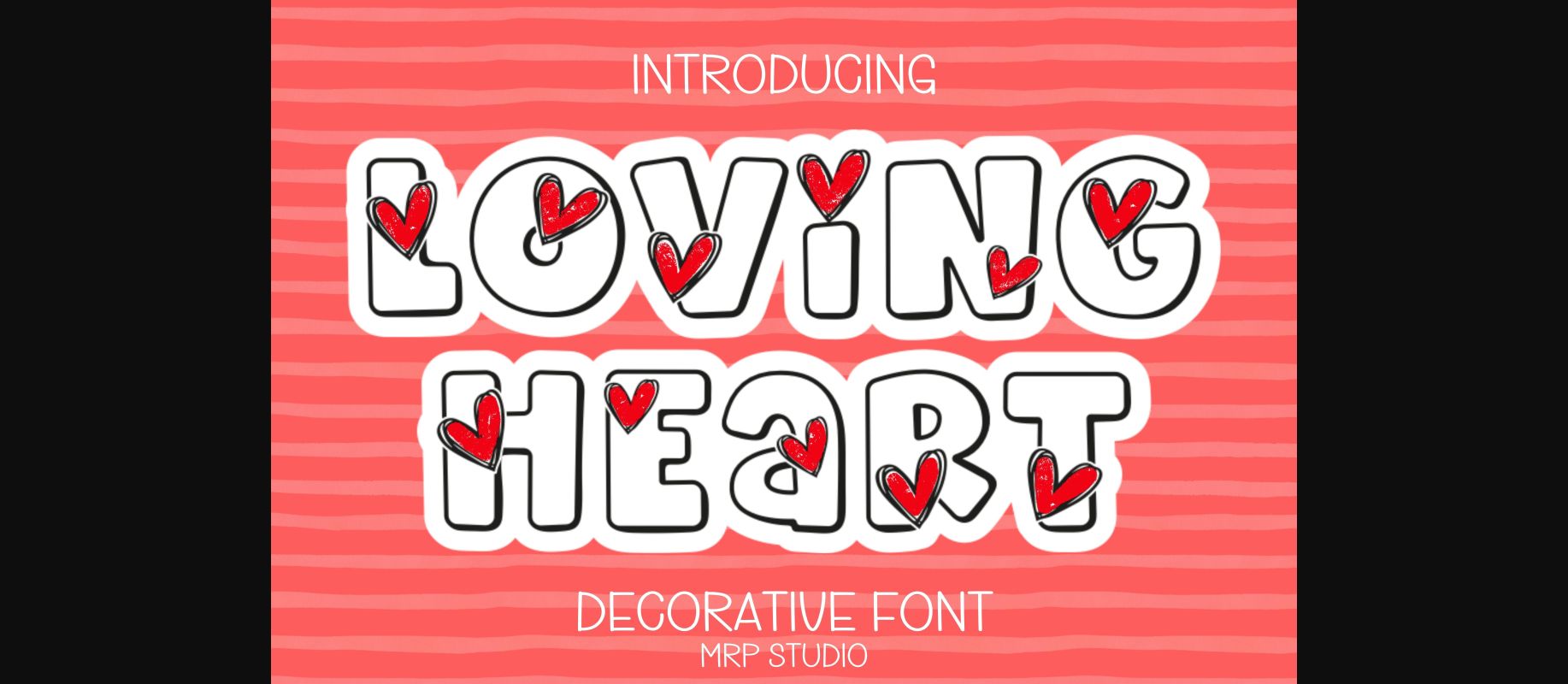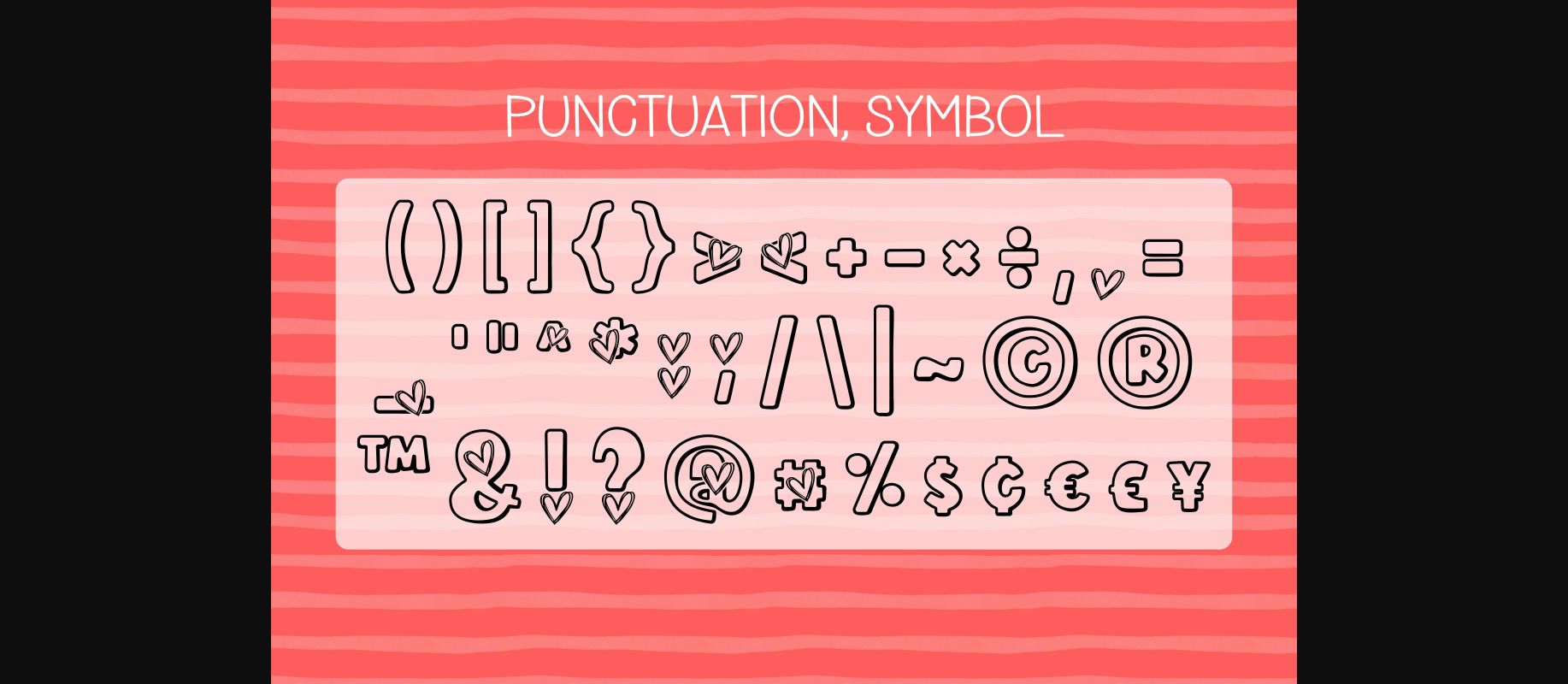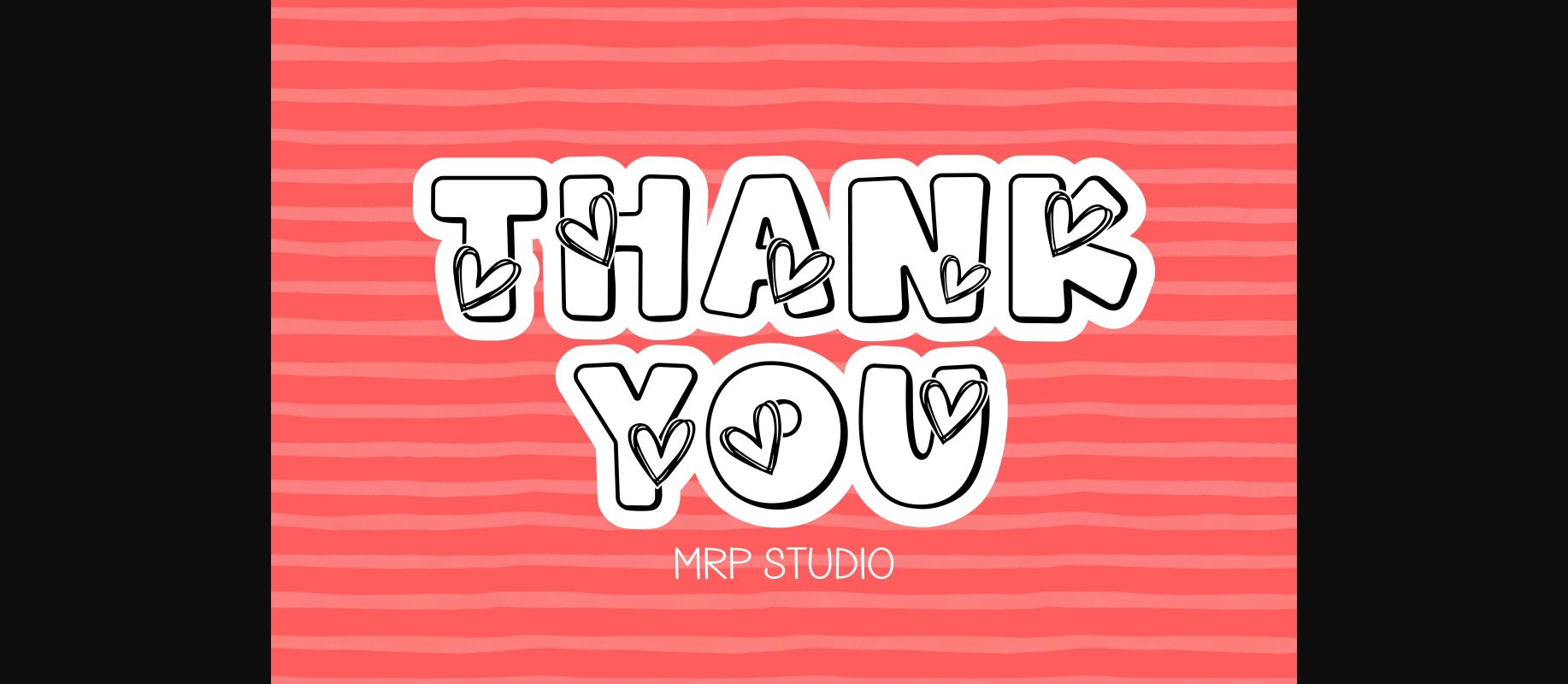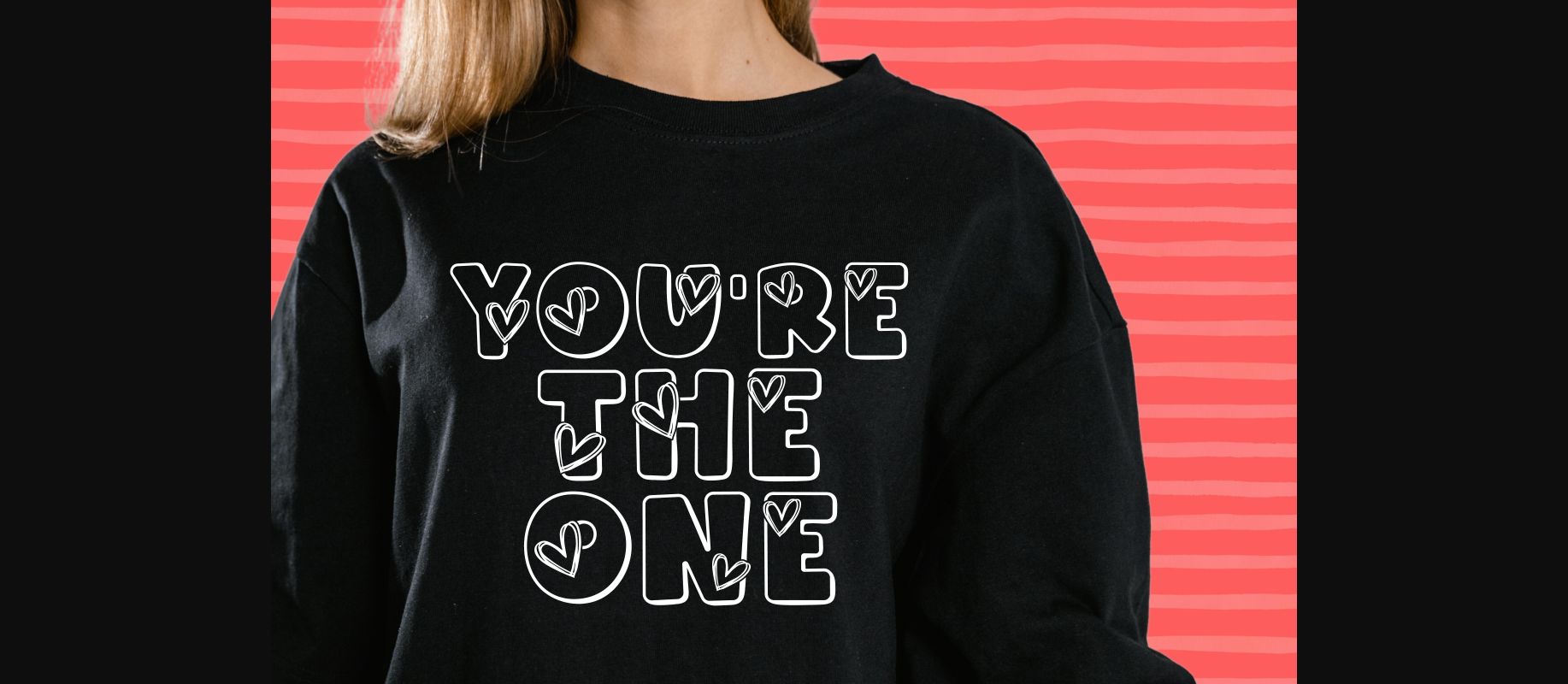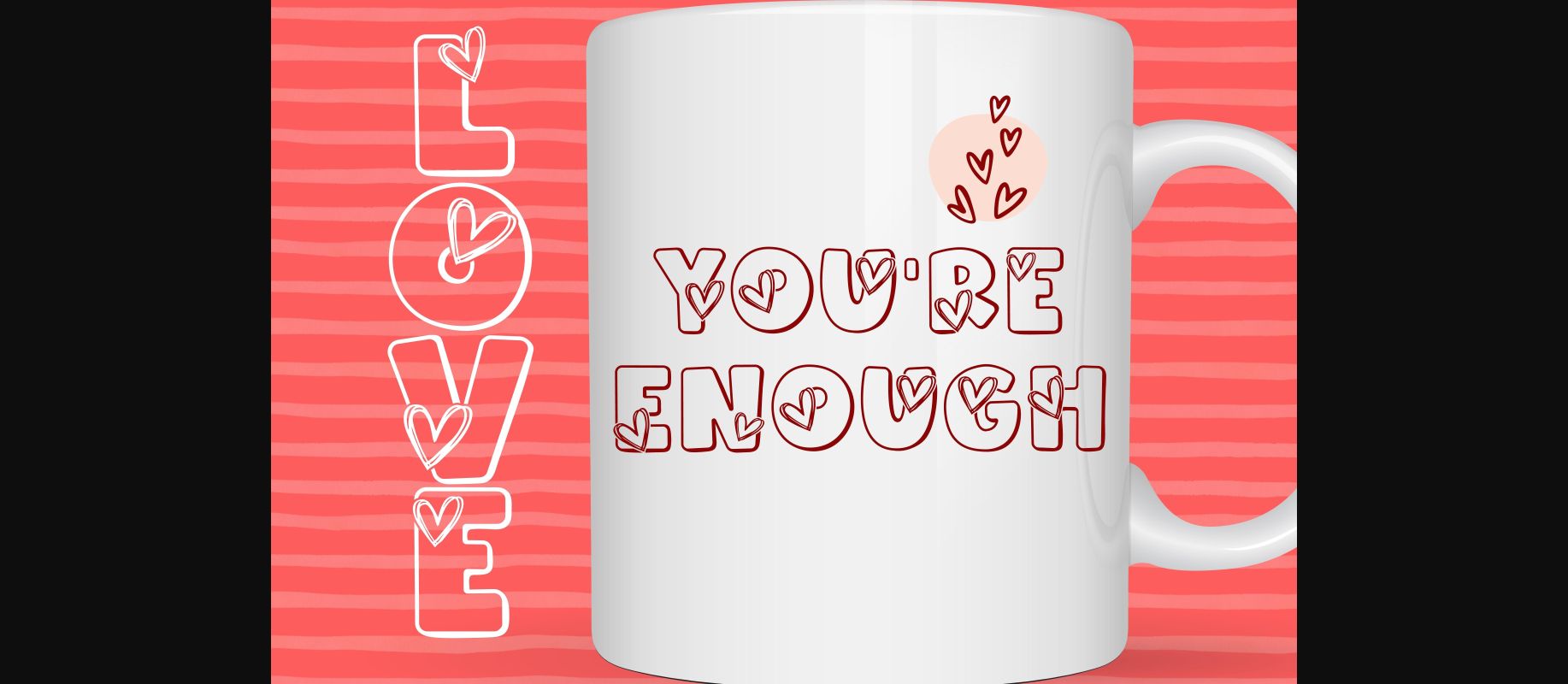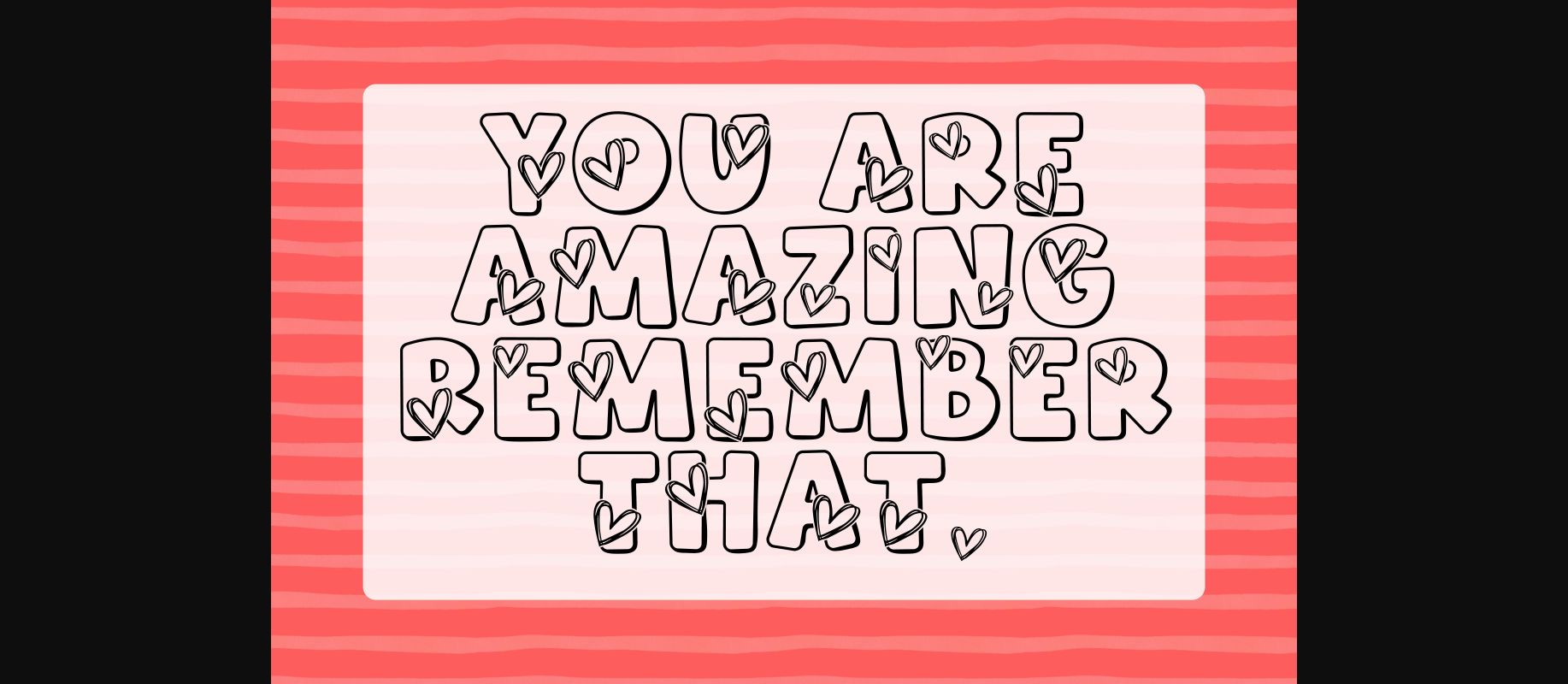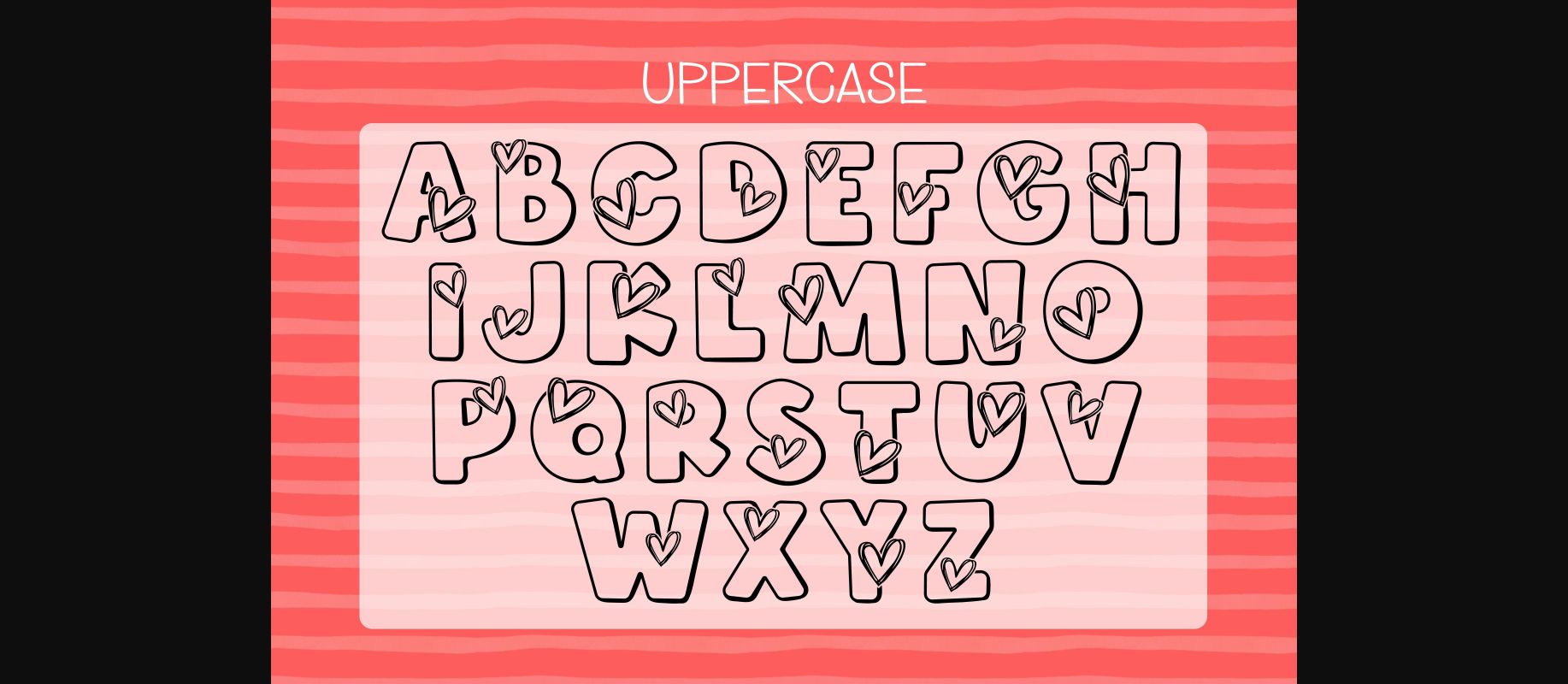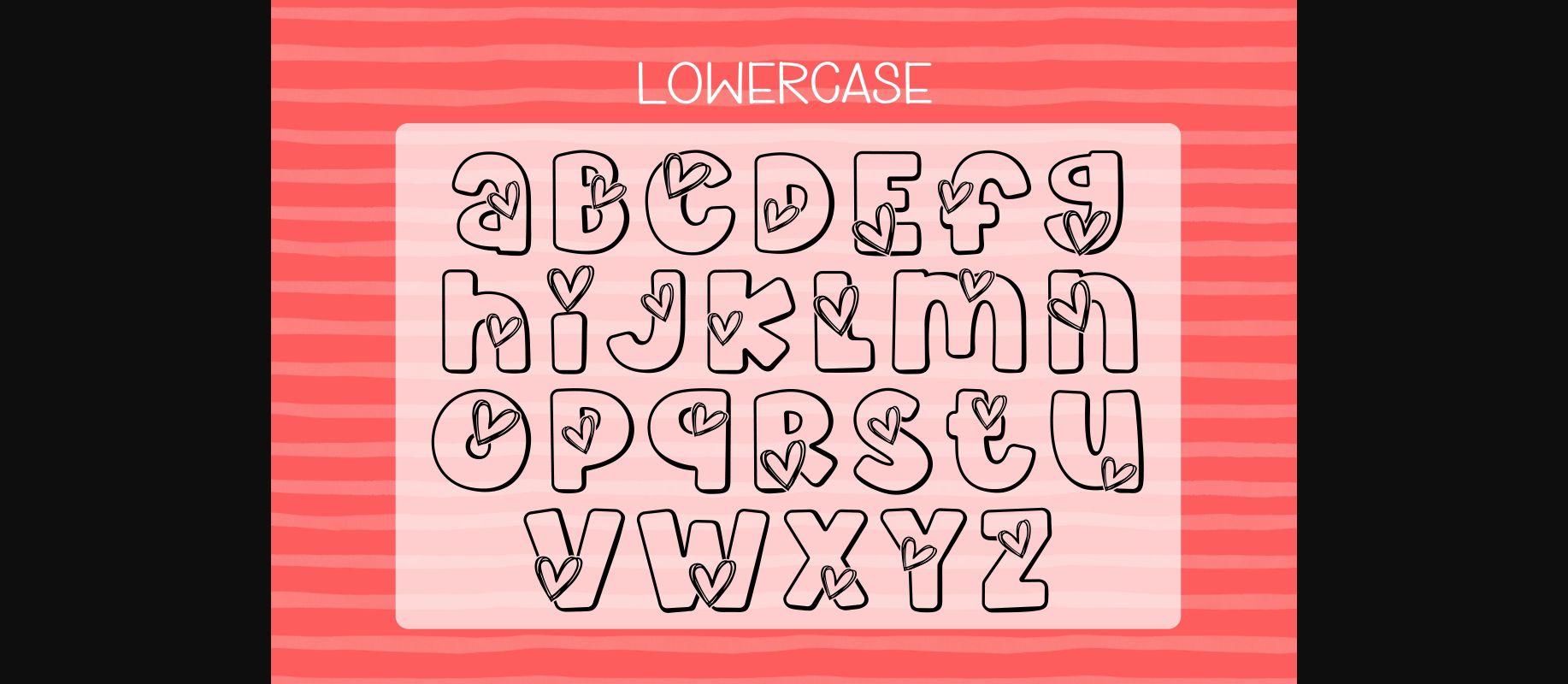
Loving Heart Font
About Loving Heart Font
Loving Heart is designed in a cute and adorable decorative font style. It would be awesome to your lovely Project and also your child-related project such as back to school, birthday party decoration and much more to any topic which need bright and fun touch. Let’s try it and add it to your creative ideas and notice how it makes them stand out!